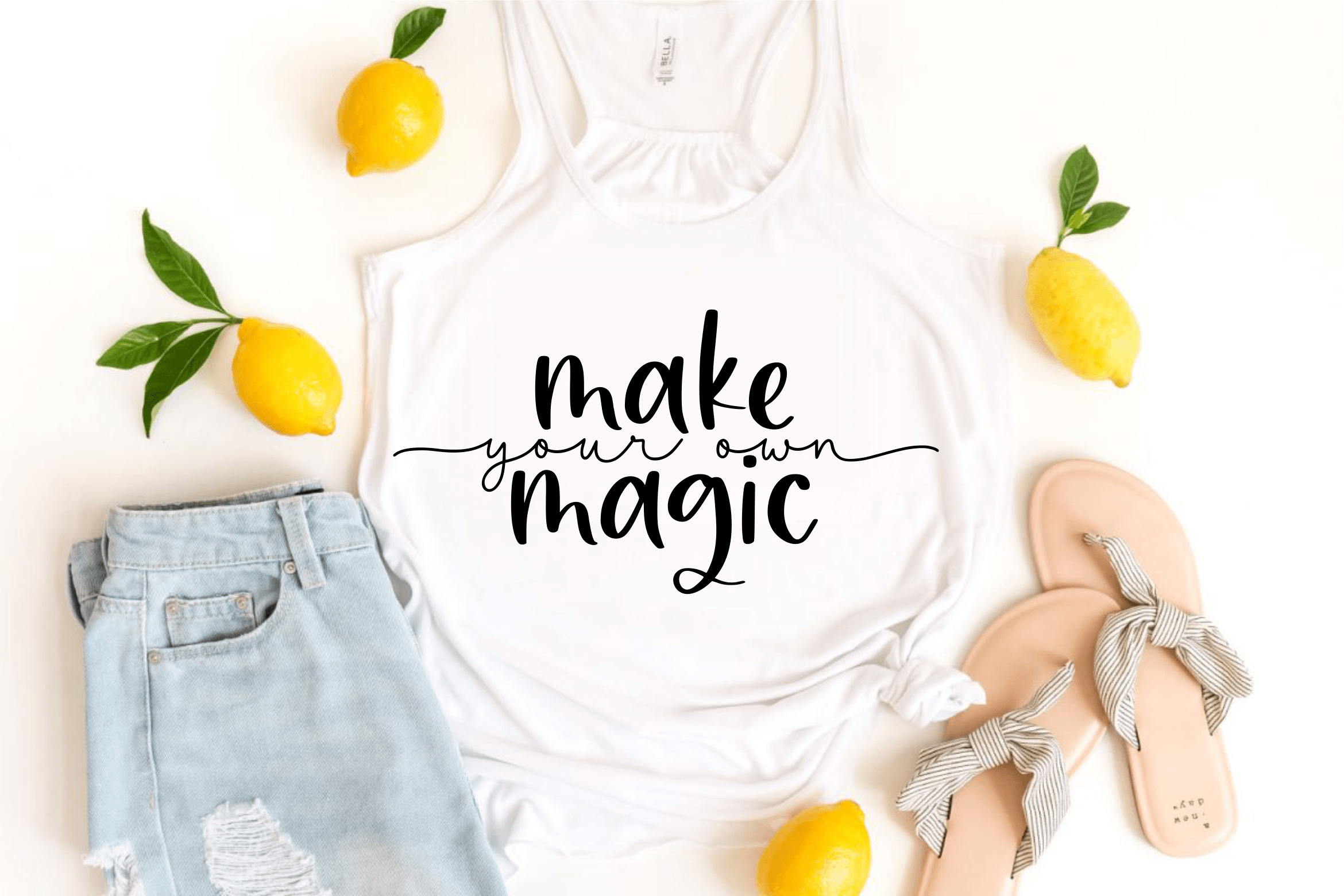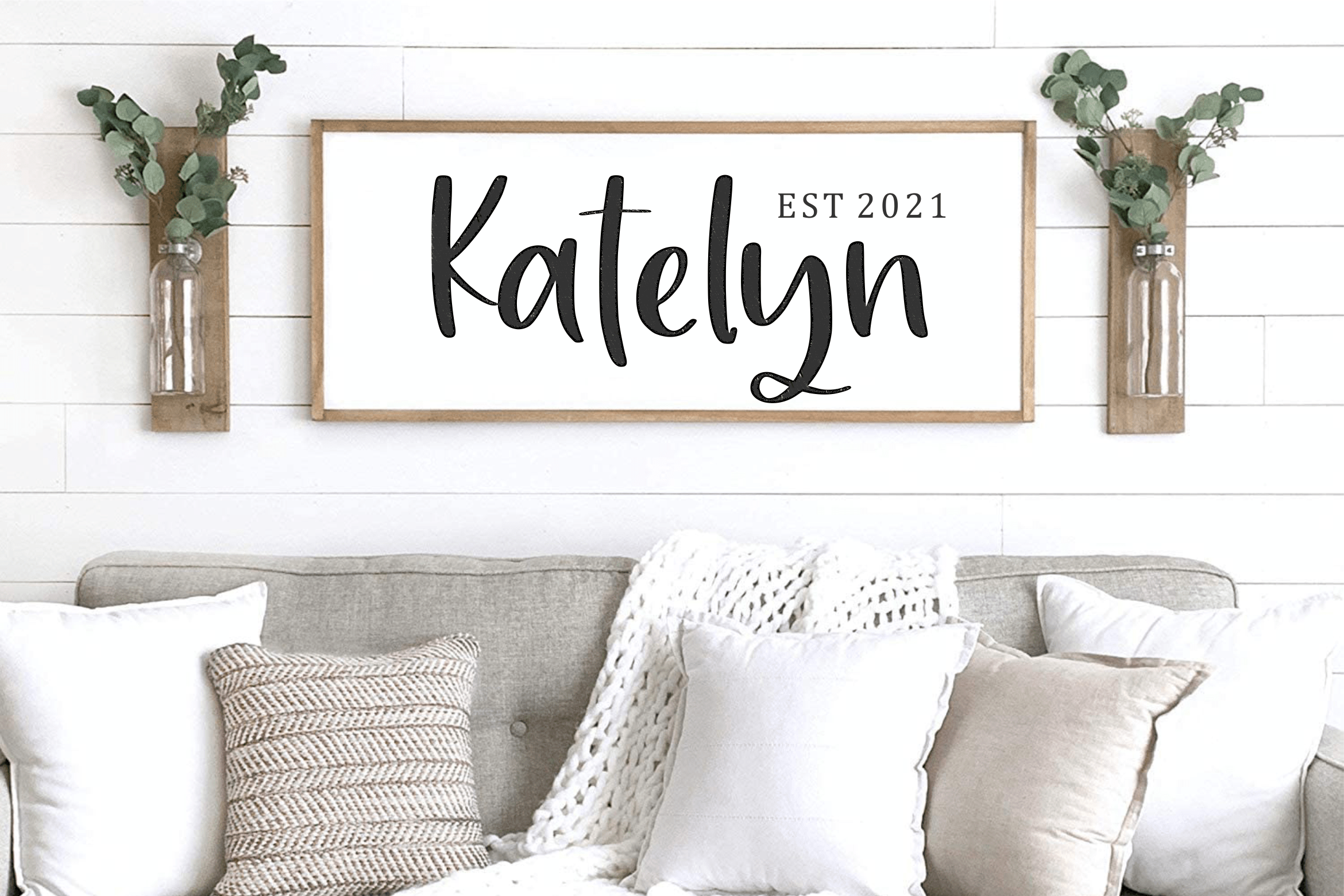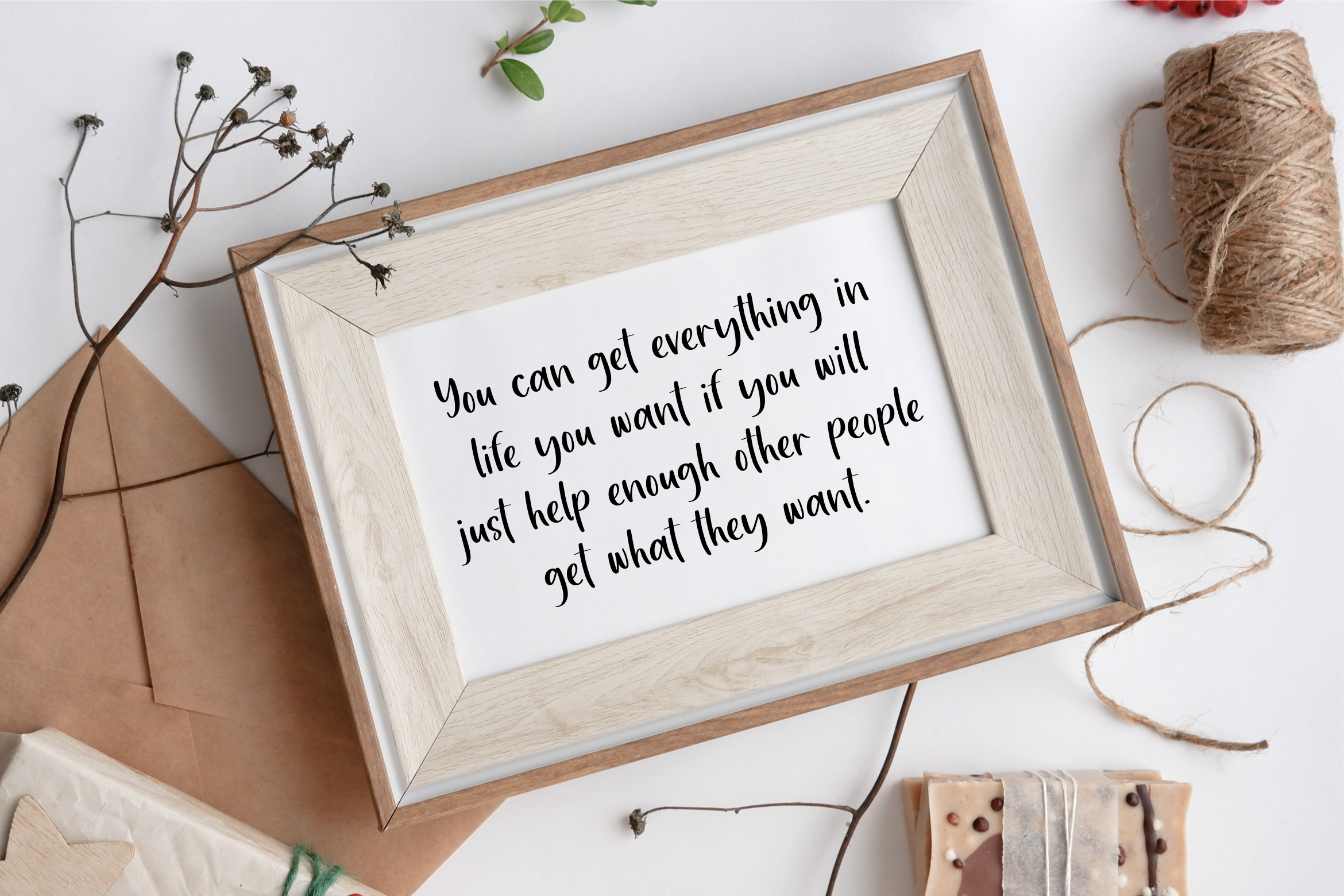
Pageberry Script Font
This is a casual and beautiful script font. It is perfect for product packaging, branding project, magazine covers, social media, wedding, or just used to express words above the background.